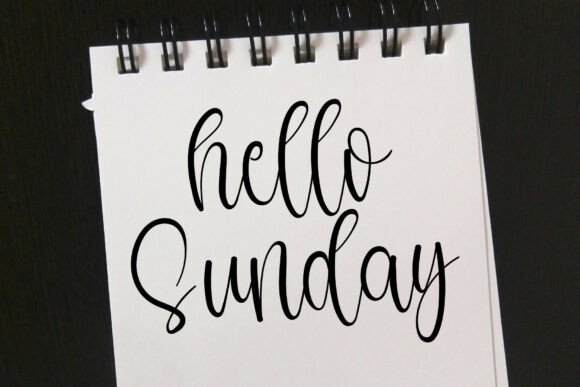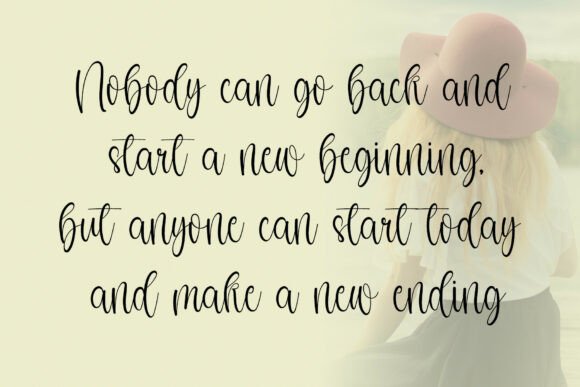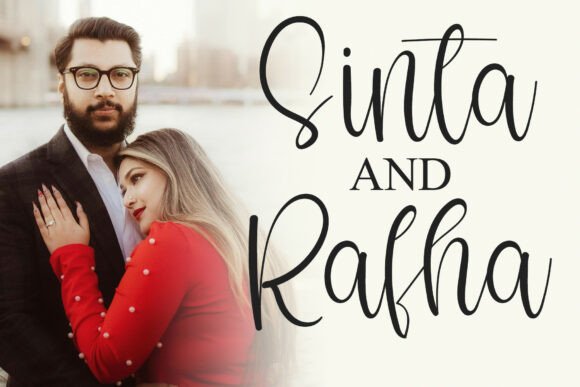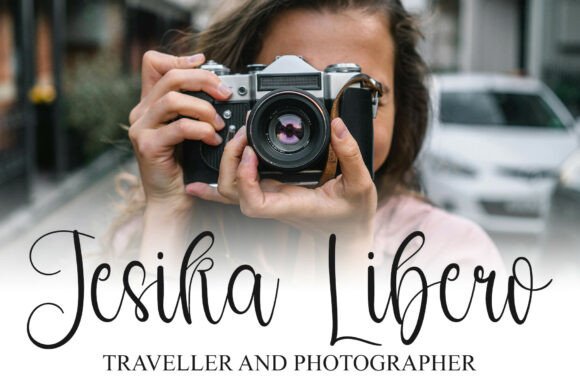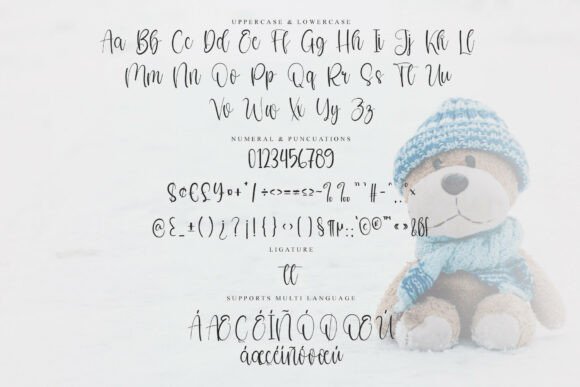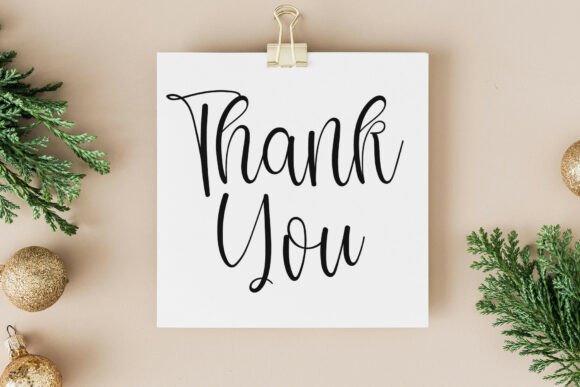
Introduction to Nauka Font
Have you ever found yourself staring at a blank page, desperately searching for the perfect font to bring your creative vision to life? The frustration is real, but what if I told you there’s a game-changing design resource waiting to be discovered? Enter the Nauka Font, a stunning combination of handwritten strokes and bold display style that will revolutionize the way you approach your next creative project.
As a designer, you understand the importance of having access to high-quality fonts that can elevate your work and make it stand out from the crowd. The Nauka Font is more than just a pretty face – it’s a valuable asset that can add a fun yet elegant touch to your designs, making it a must-have for any serious design enthusiast.
- Unique characteristic: Nauka Font features a modern, elegant design with a touch of sophistication, making it perfect for various creative projects
Honest Review: Nauka Font
- ✨ Unique and modern design aesthetic
- ✨ Highly legible and readable even at small font sizes
- ✨ Suitable for a wide range of creative projects, from branding to digital art
- ⚠️ Not suitable for extended text blocks due to its modern and condensed design
Overall, I’m impressed with the Nauka Font’s potential and versatility. While it may not be the best choice for every project, it’s definitely a valuable design resource to have in your toolkit. With a little creativity, you can unlock its full potential and create something truly unique and eye-catching.
Tips for Getting the Most Out of Nauka Font
The Nauka Font is ideal for various creative projects, such as infographics, brochures, and website headers. Its high-quality design and transparent background make it a versatile design resource for both personal and professional use.